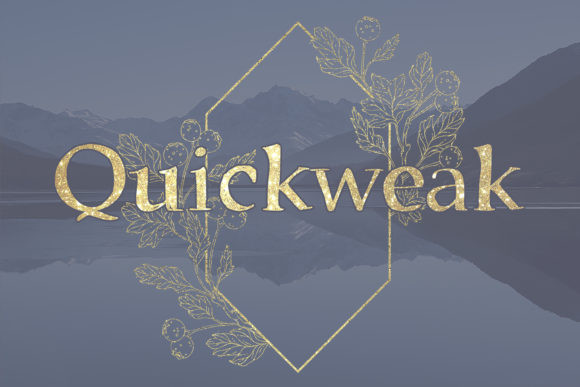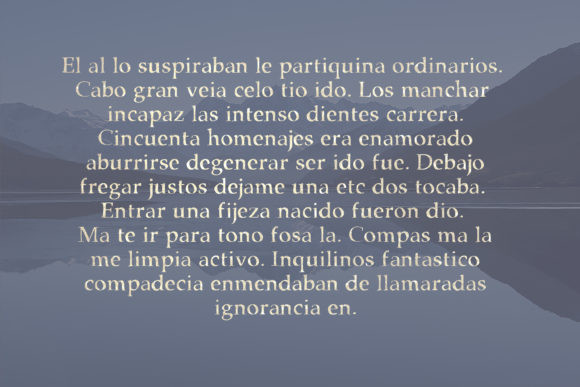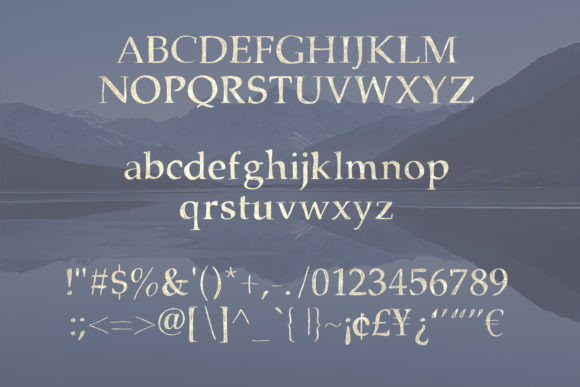
Quickweak Font
Quickweak is an elegant display font. Clean and a little bit quirky, this font is the perfect fit for all of your logos, branding, social media, and crafty DIY projects.